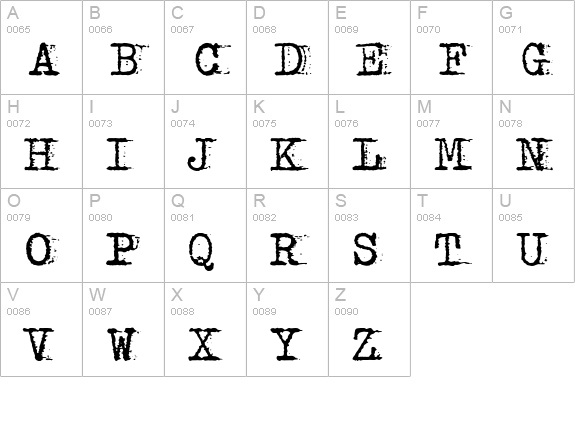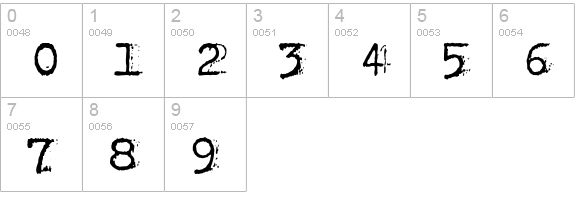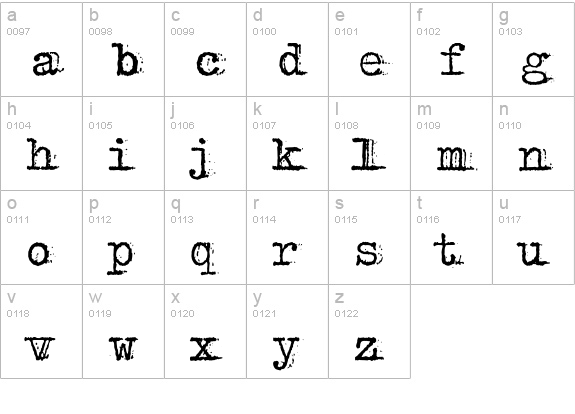
bulkyRefuse Type Normal Font Details
bulkyRefuse Type Normal is the standard, neutral variant in the bulkyRefuse typeface family \xE2\x80\x94 well suited to general body text, paragraphs, and standard typographic work.
bulkyRefuse Type Normal font is a versatile and robust typeface that exudes a strong and commanding presence. With its bold and bulky letterforms, this font is perfect for making a bold statement in your designs. The sharp edges and distinct style of bulkyRefuse Type Normal make it stand out from the crowd and grab the attention of viewers. This font is ideal for headlines, posters, logos, and other design projects where you want to make a big impact. Its unique design adds a touch of personality and originality to any piece of work. What's even better is that bulkyRefuse Type Normal font is freely available to download at FontsMarket.com. So, don't miss out on the opportunity to add this powerful and eye-catching font to your collection today!